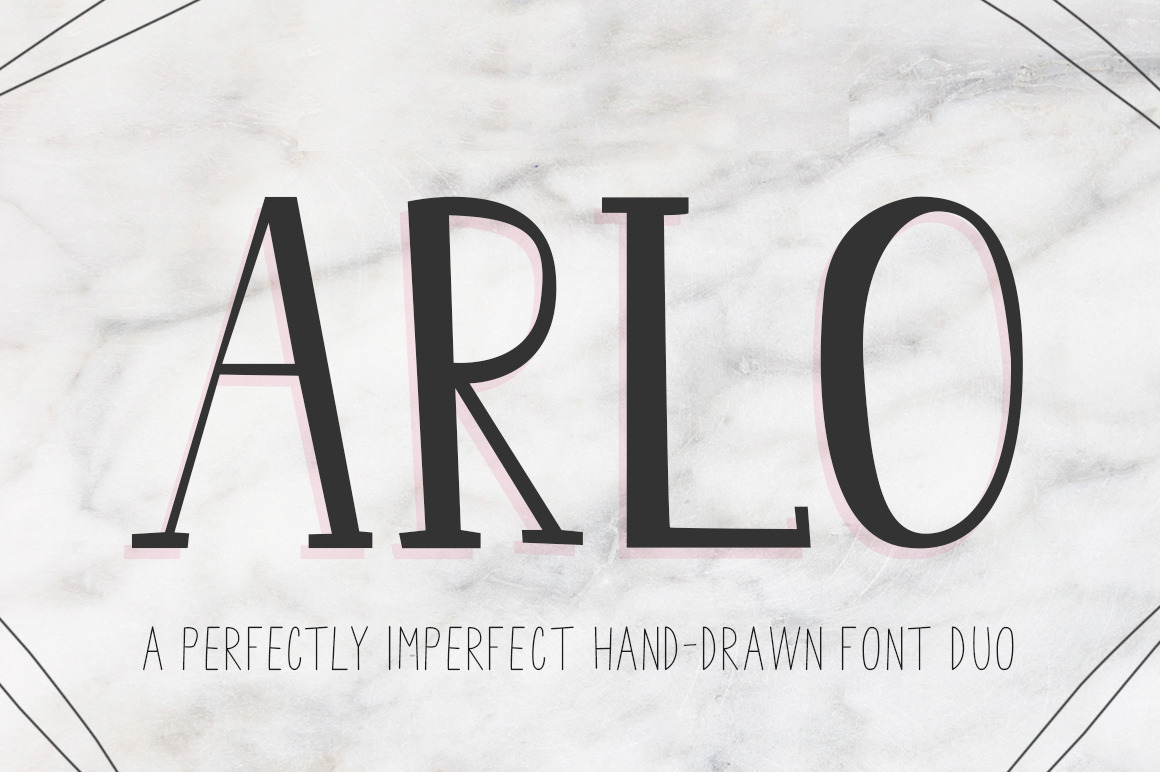
Arlo Font Duo
Introducing ARLO, a perfectly imperfect font duo!
Hand illustrated letters create this quirky little font set, great for injecting personality and creating fun designs. The uppercase duo works well together or alone as shown.
- Arlo.otf designed as a headline display font
- Arlo-Lite.otf includes a few extra punctuation characters suitable for body copy.